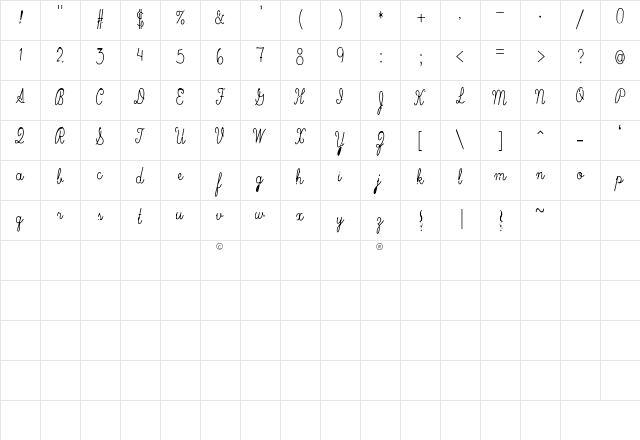
CryptScript Regular
Design Context for CryptScript
CryptScript flows with the natural rhythm of handwritten lettering, making it ideal for designs that call for warmth and personal expression.
Font Pairing: Combine CryptScript with a simple geometric sans for maximum contrast - the tension between flowing curves and clean structure is a classic typographic pairing.
Pro Tip: Use CryptScript for short runs of text - names, titles, or taglines. Extended body copy in script faces tires the eye quickly.